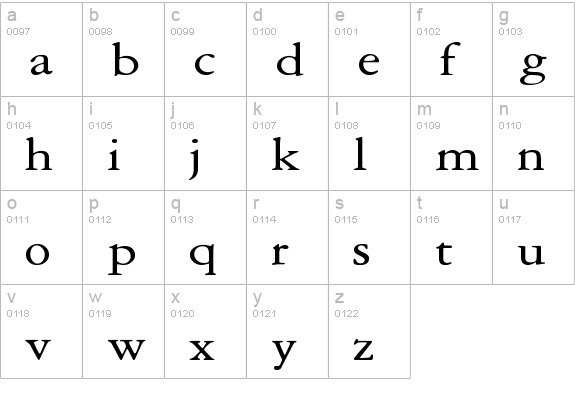
Marino Font Details
Marino font is a modern and stylish typeface that is sure to make your designs stand out. With its sleek lines and elegant curves, Marino is perfect for creating eye-catching logos, posters, websites, and more. This versatile font is free to download at FontsMarket.com, making it accessible to designers of all levels. Whether you're working on a professional project or a personal passion project, Marino is a fantastic choice that will elevate your designs to the next level. Don't miss out on this amazing font - download Marino today and start creating beautiful designs with ease!